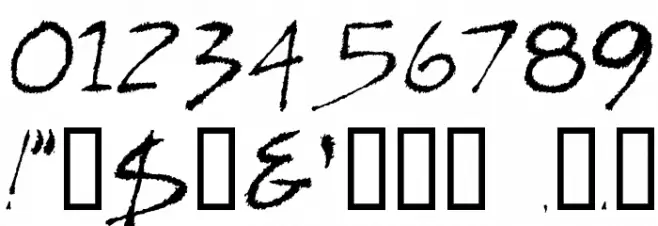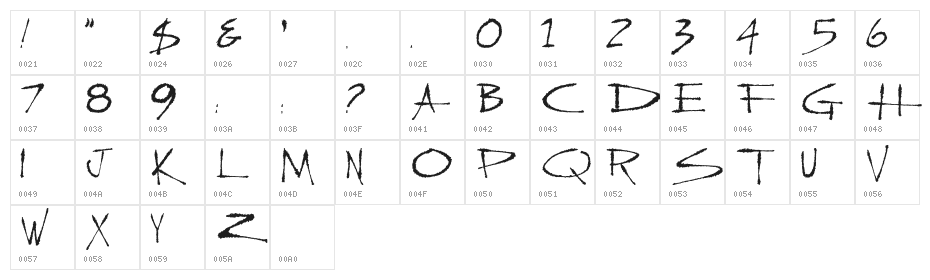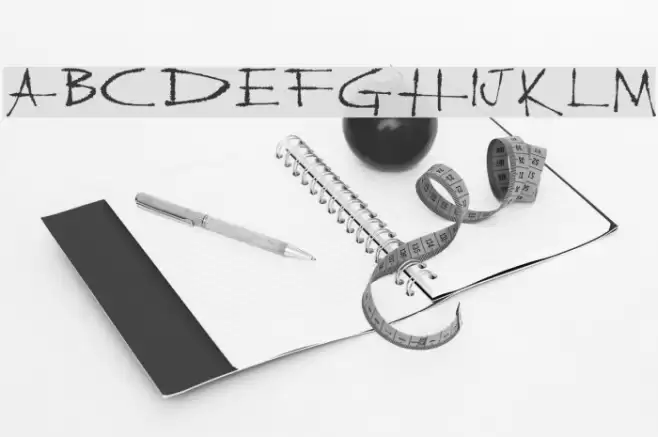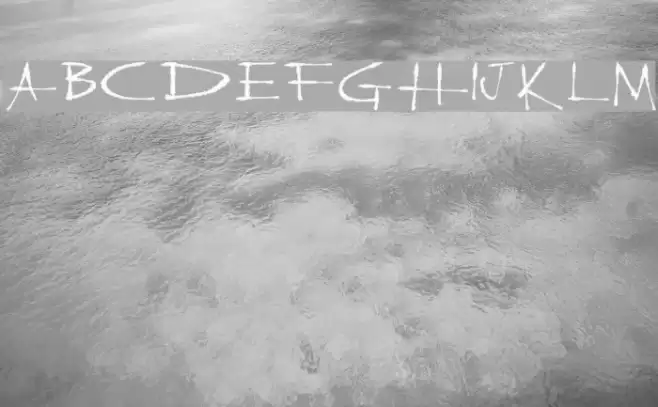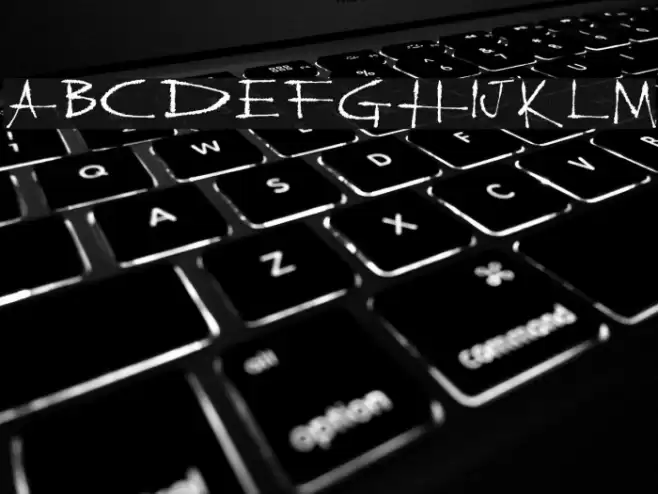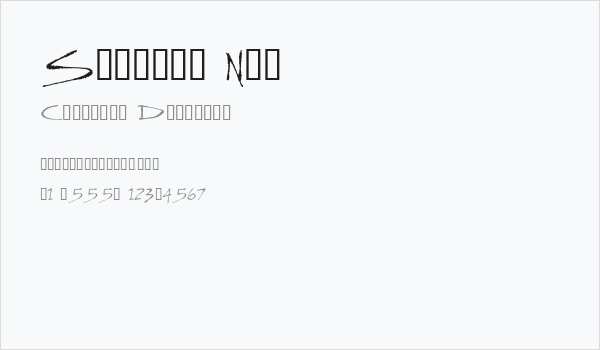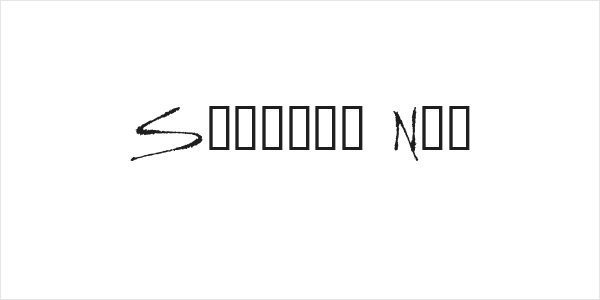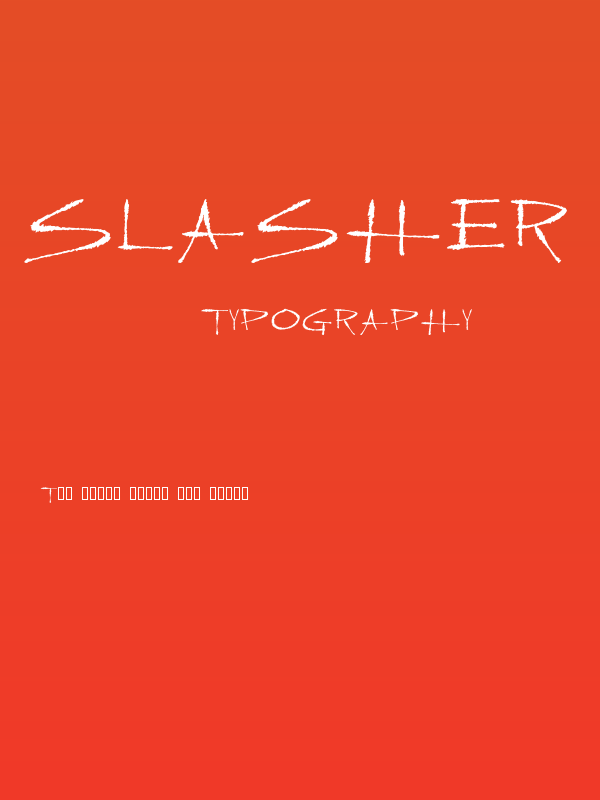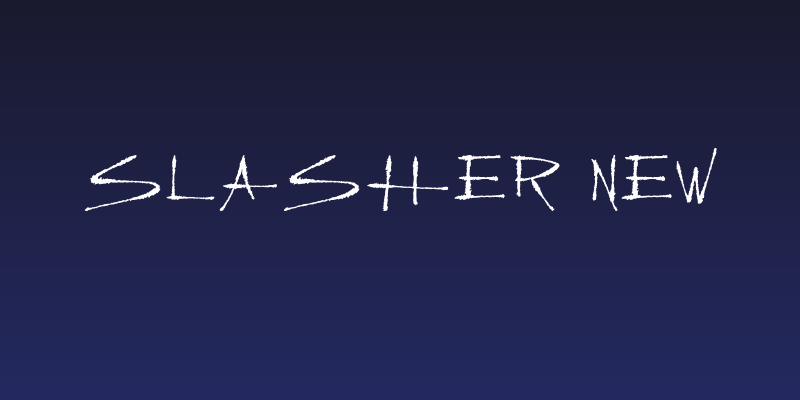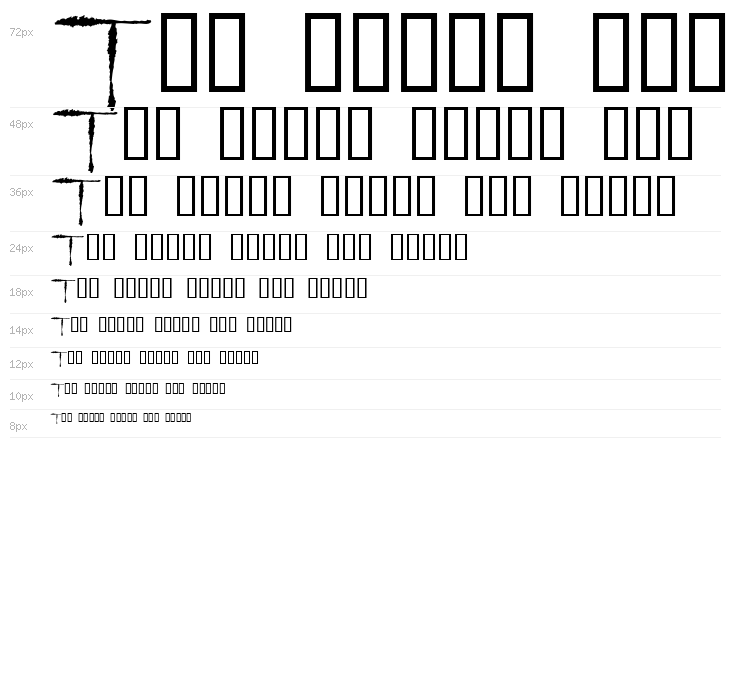
Slasher New Font
Slasher New Description
This font features a dynamic, edgy style with sharp, angular strokes that give it a hand-drawn appearance. The uppercase letters are tall and slightly irregular, adding to the font's raw and energetic feel. The lowercase letters maintain this aesthetic, with some characters extending below the baseline, enhancing the font's informal and spontaneous look. The numbers are consistent with the overall style, featuring the same jagged edges and varied line thickness. Special characters are designed to match the font's unique, expressive character. This font is ideal for projects that require a bold, unconventional look, such as horror-themed designs or edgy branding.
Overall StyleModern, Decorative
Proposed ProjectsIdeal for horror-themed designs, edgy branding, posters, and album covers.